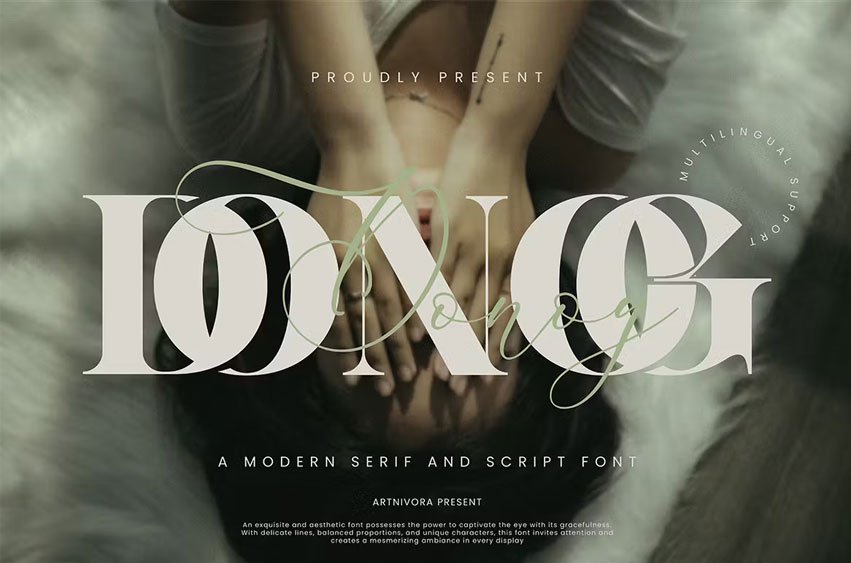
Donog Font is a simple and serif script font. So perfect for you who needs a typeface for logo designs, magazine, social media, brochure, and many more.